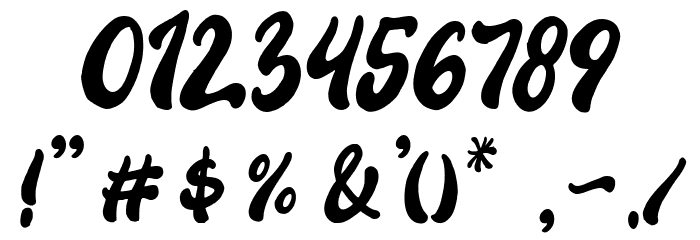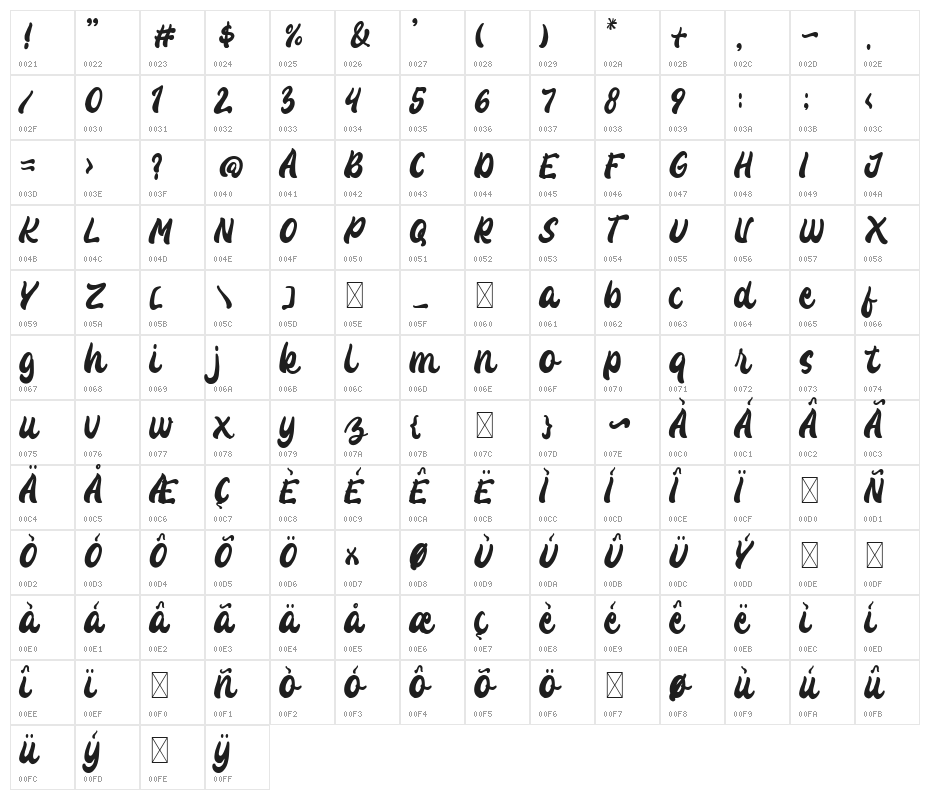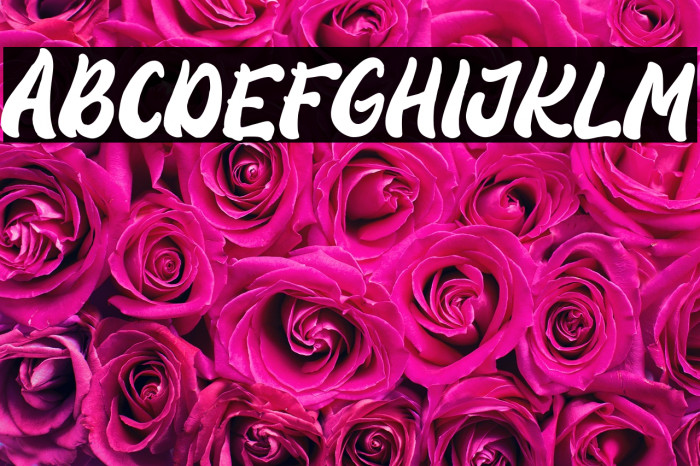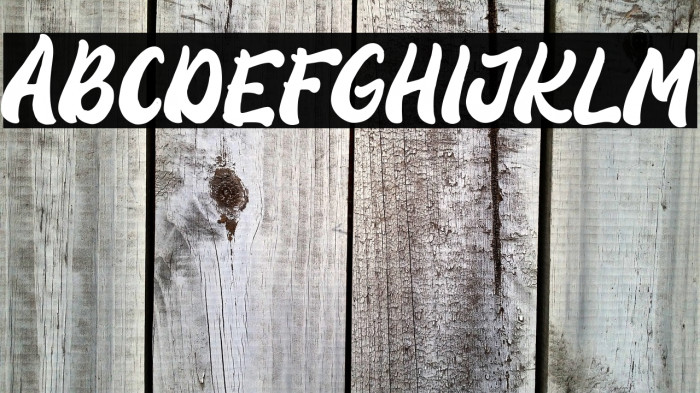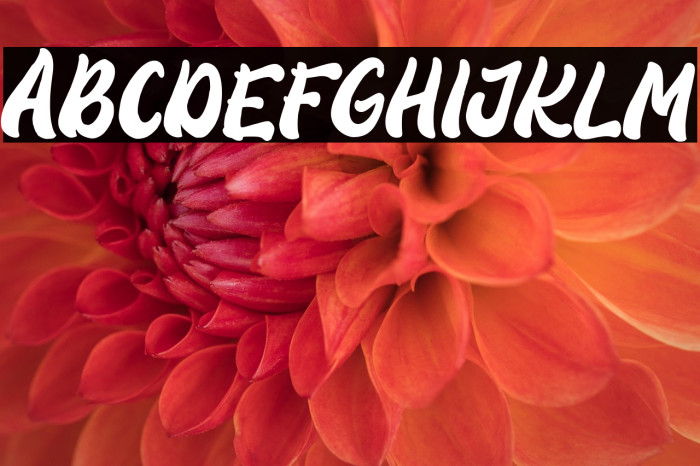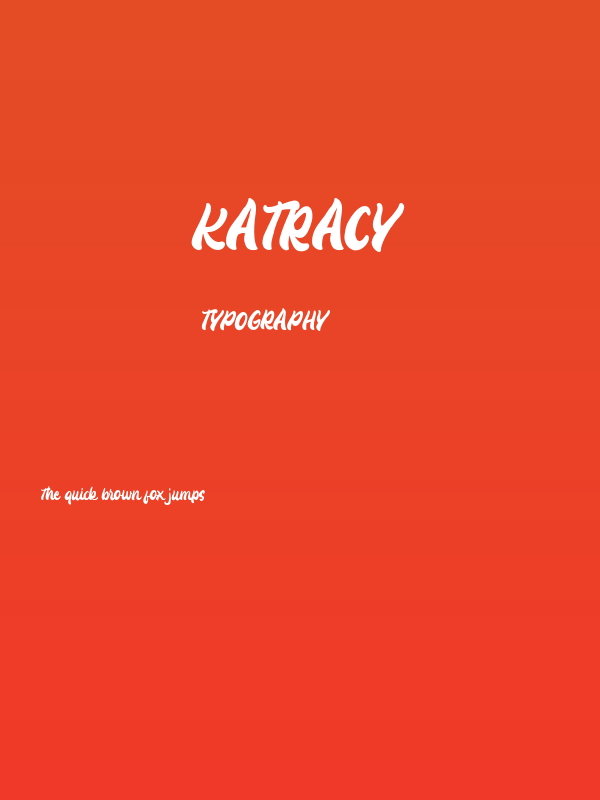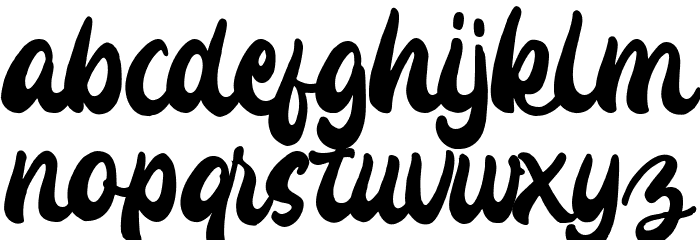
Katracy Font
Katracy Description
This font features a bold and expressive handwritten style, characterized by its fluid and dynamic strokes. The letters are slightly slanted, giving a sense of motion and energy. The uppercase and lowercase letters maintain a consistent style, with rounded edges and a playful, informal appearance. The numbers and special characters follow the same design, ensuring a cohesive look across all elements. The overall impression is one of creativity and spontaneity, making it suitable for projects that require a personal touch.
| Proposed Projects | Ideal for greeting cards, invitations, branding projects, and social media graphics where a personal and creative touch is desired. |